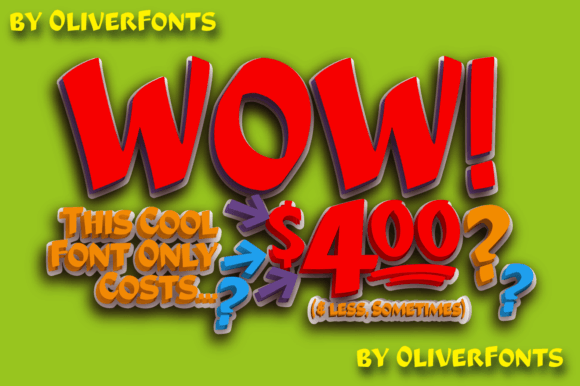
Get ready to make a statement with WOW Font - the ultimate display font that screams boldness and fun! Crafted by the talented OLIVERFONTS, WOW exudes a casual and wild charm that will elevate your designs to new heights of originality and style.
With its eye-catching glyphs and swashes, WOW is the perfect font for any creative project that demands attention. Whether you're designing logos, posters, social media graphics, or eye-popping headlines, WOW will make sure your message stands out from the crowd.
But it's not just about aesthetics - WOW is also incredibly versatile and easy to use. As a PUA-encoded font, you can effortlessly access all glyphs and swashes with a few simple clicks, giving you the freedom to experiment and create stunning designs in no time.